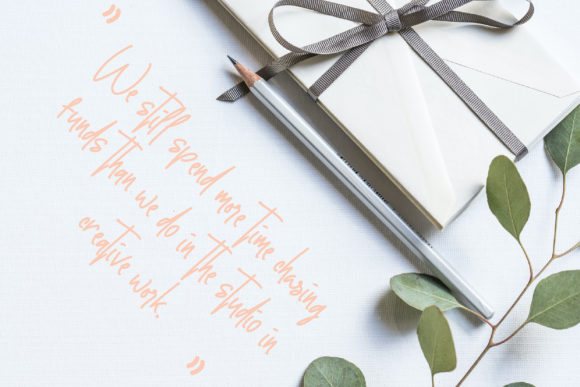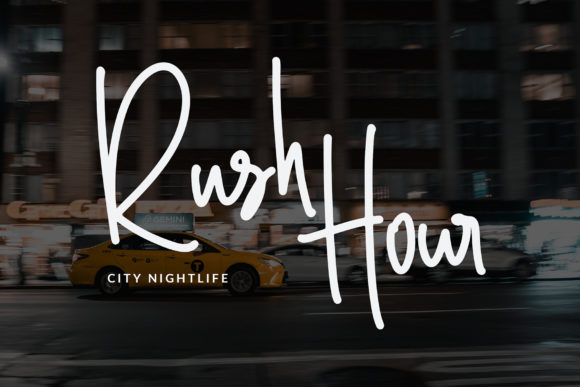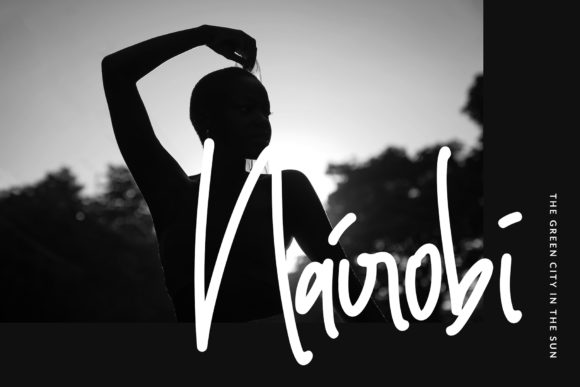
Introduction to Justtony Font
As a designer, there’s nothing quite like the thrill of finding the perfect font to elevate your creative project. It’s that ‘aha’ moment when everything falls into place, and your vision comes alive. For me, it was the discovery of the Justtony Font – a masterfully designed handwritten font that has become my go-to for any project requiring a touch of elegance and sophistication.
What sets Justtony Font apart is its unique blend of classic calligraphic influences and modern flair, making it a valuable addition to any designer’s arsenal. With its high-quality design and transparent background, this font is perfect for anyone looking to add a personal touch to their work. And the best part? It’s available for free download, making it an accessible design resource for creatives of all levels.
Key Features of Justtony Font
- Includes a wide range of characters and glyphs for comprehensive typography
- Designed with a unique aesthetic, perfect for modern and minimalist creative projects
Honest Review: Justtony Font
I recently stumbled upon the Justtony Font while searching for a high-quality design resource for a creative project. I was impressed by its sleek and modern look, making it perfect for any project that requires a touch of sophistication.
- ✨ High-quality design: The Justtony Font is well-crafted and looks great on any design project.
- ✨ Versatile: It’s perfect for a wide range of creative projects, from brochures to websites.
- ⚠️ Limited font styles: While the font is versatile, it’s limited to a few font styles, which may not be suitable for every design project.
- ⚠️ Not ideal for large text: The font may not be the best option for large text elements, as it can become difficult to read.
Overall, I’m impressed with the Justtony Font and would recommend it to designers looking for a high-quality design resource. While it may have some limitations, it’s a great option for most creative projects.
How to Use Justtony Font
Tips for Getting the Most Out of Justtony Font
To get the most out of the Justtony Font, use it in conjunction with other high-quality design elements and experiment with different font sizes and styles.
The Justtony Font is ideal for a variety of use cases, including:
Alternatives to Justtony Font
Montserrat is a sans-serif typeface designed for digital use. It’s perfect for creative projects that require a clean and modern look. With a wide range of weights, you can easily customize the font to suit your design needs. Montserrat is available for free download and is a popular choice among designers.
Montserrat compares to Justtony Font in its simplicity and versatility. However, Montserrat has a more geometric feel, making it ideal for digital design.
Open Sans is a highly legible sans-serif font designed for user interface (UI) design. It’s a great choice for design resources that require a clear and readable font. Open Sans is available for free download and is widely used in the design community.
Open Sans compares to Justtony Font in its clean and modern design. However, Open Sans has a more rounded feel, making it ideal for UI design and other creative projects that require a friendly tone.
Lato is a modern sans-serif typeface designed for digital use. It’s perfect for design resources that require a high-quality font with a transparent background. Lato is available for free download and is a popular choice among designers.
Q: Is Justtony Font suitable for high-resolution printing?
Yes, Justtony Font is designed to be high-quality and suitable for high-resolution printing. The font is optimized for crisp and clear rendering at various sizes and resolutions, making it an excellent choice for any design project that requires high-quality typography.